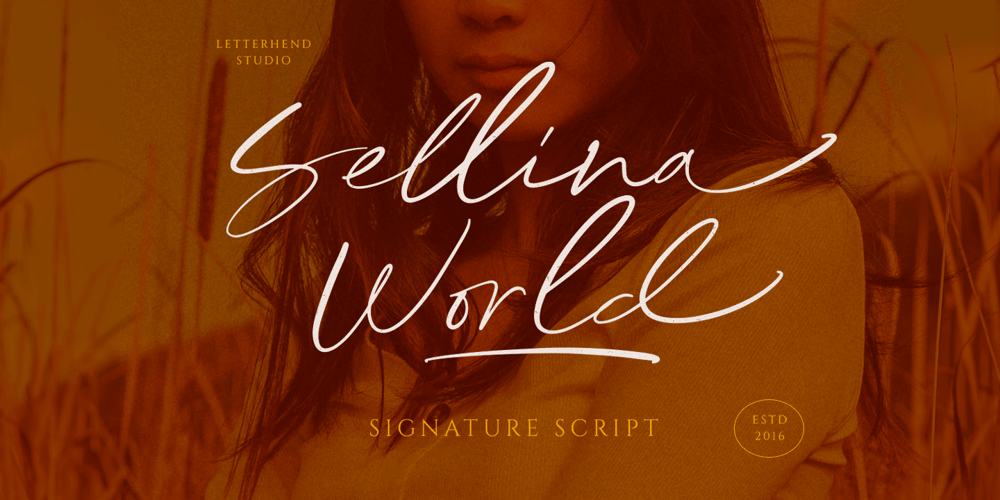
Sellina Word Font Family was designed by Hendry Juanda and published by Letterhend. Sellina Word contains 1 styles and family package options. Sellina World is a beautiful signature script based on manual hand writing. The stylistic alternate, ligatures and the tick and thin stroke make this font looks a real hand writing instead of typing a font. This type of font perfectly made to be applied especially in logo, and the other various formal forms such as invitations, labels, logos, magazines, books, greeting / wedding cards, packaging, fashion, make up, stationery, novels, labels or any type of advertising purpose.Features : uppercase & lowercase numbers and punctuation multilingual alternates and ligatures PUA encoded We highly recommend using a program that supports OpenType features and Glyphs panels like many of Adobe apps and Corel Draw, so you can see and access all Glyph variations. How to access opentype feature : letterhend.com/tutorials/using-opentype-feature-in-any-software/